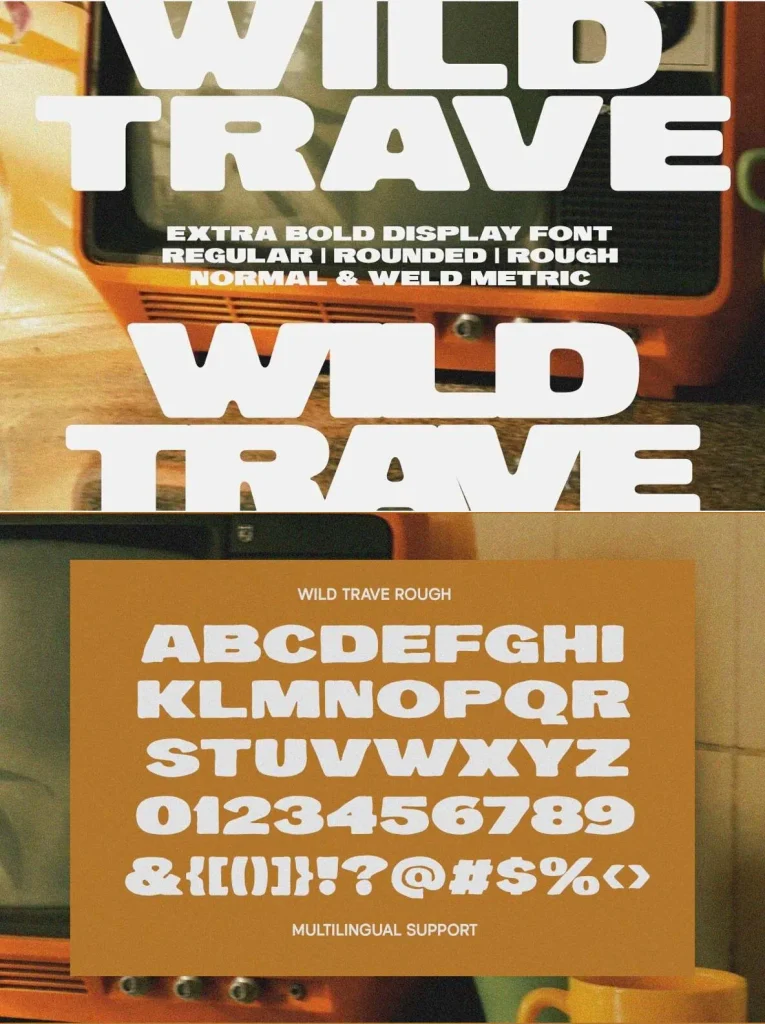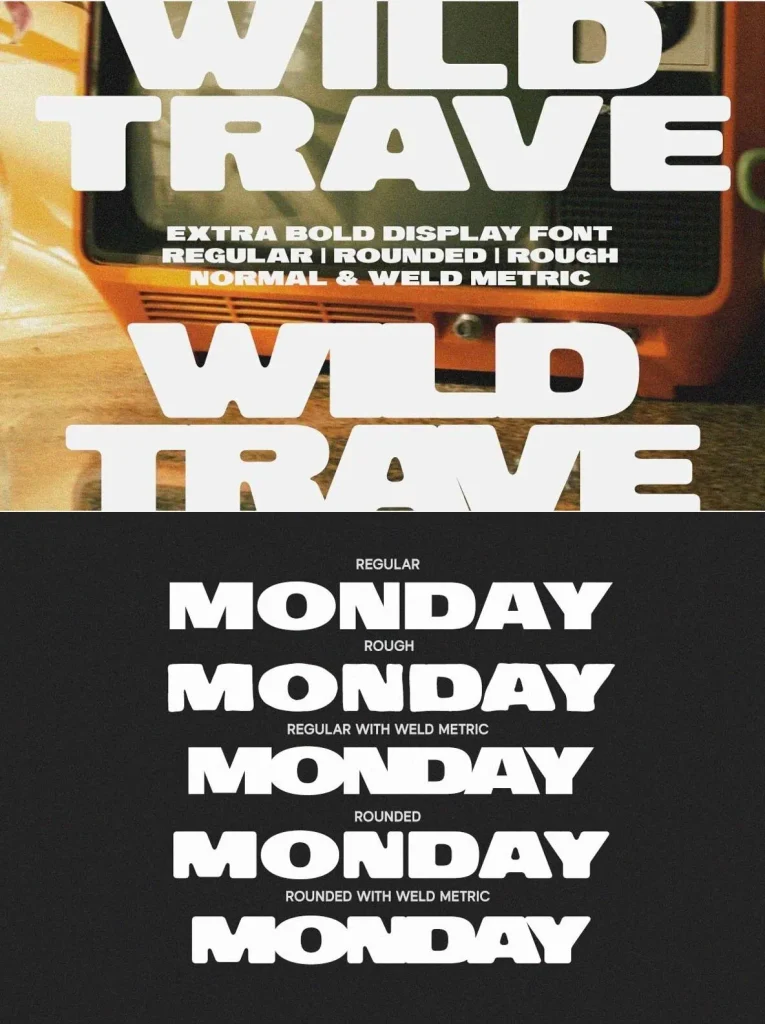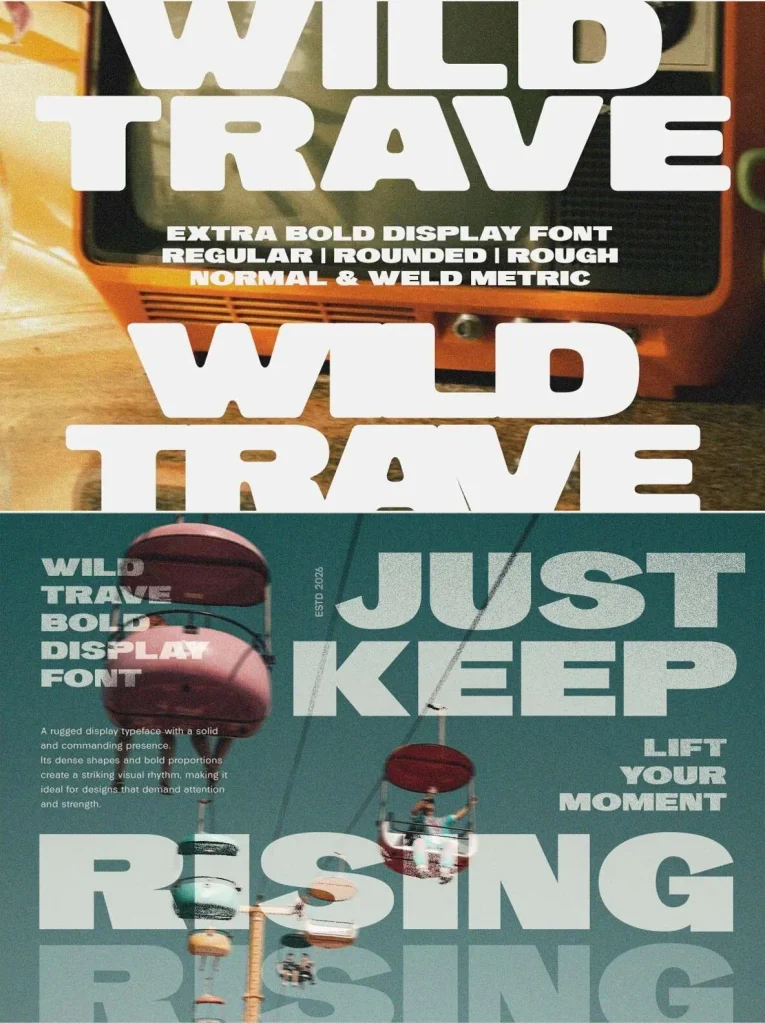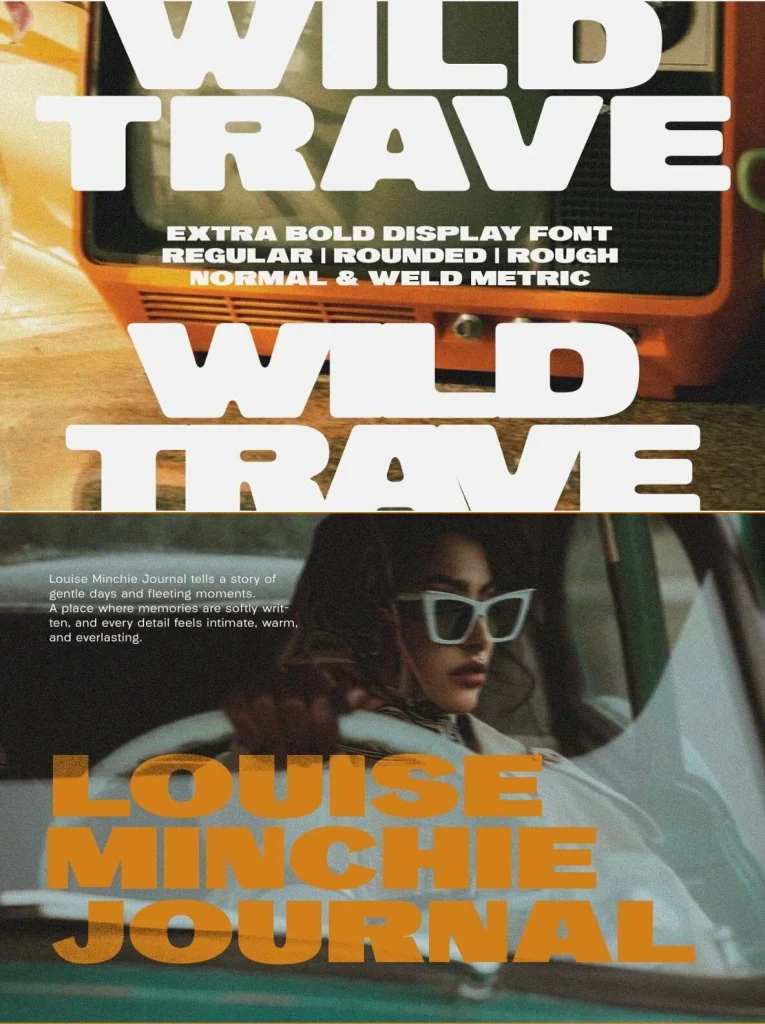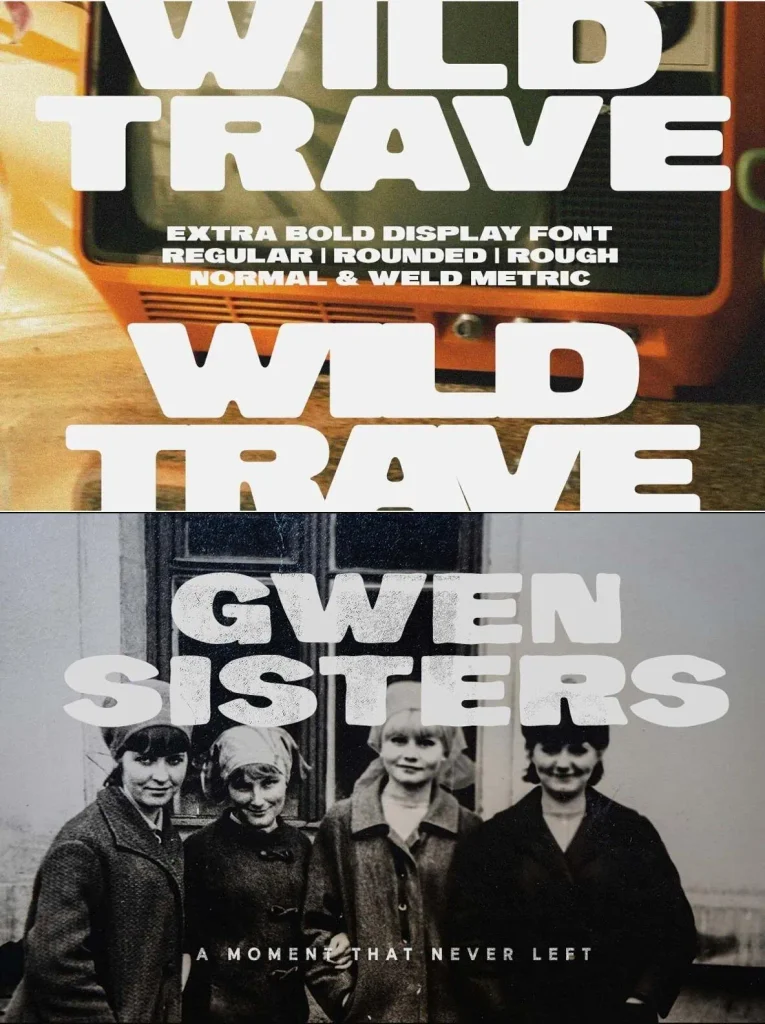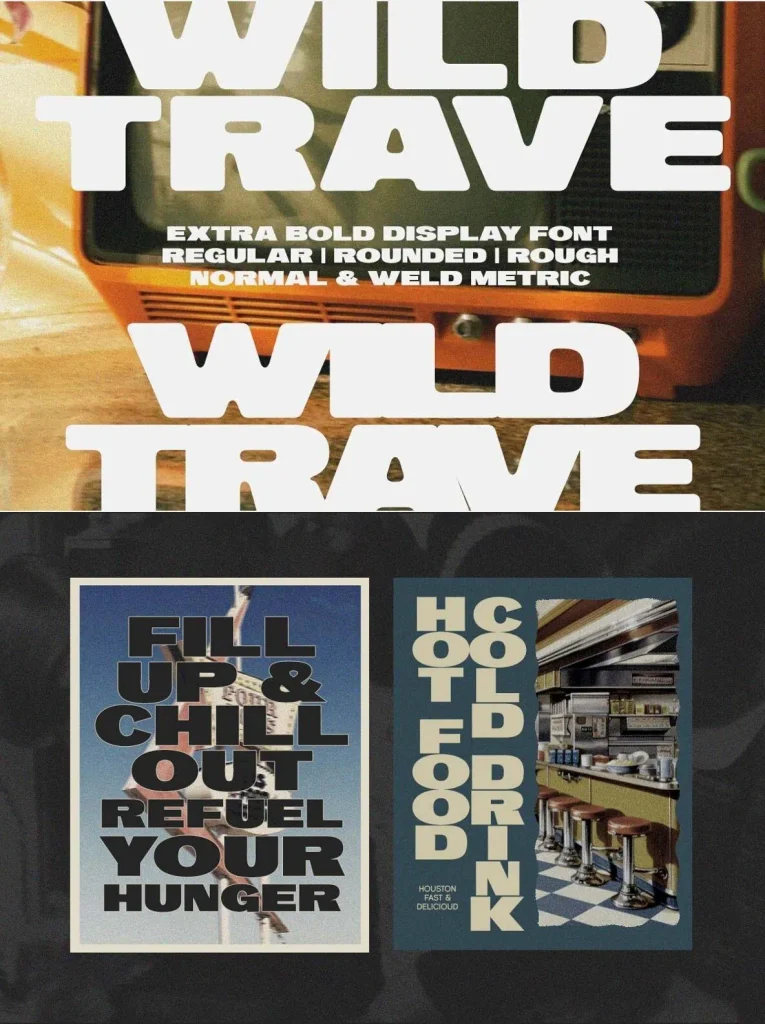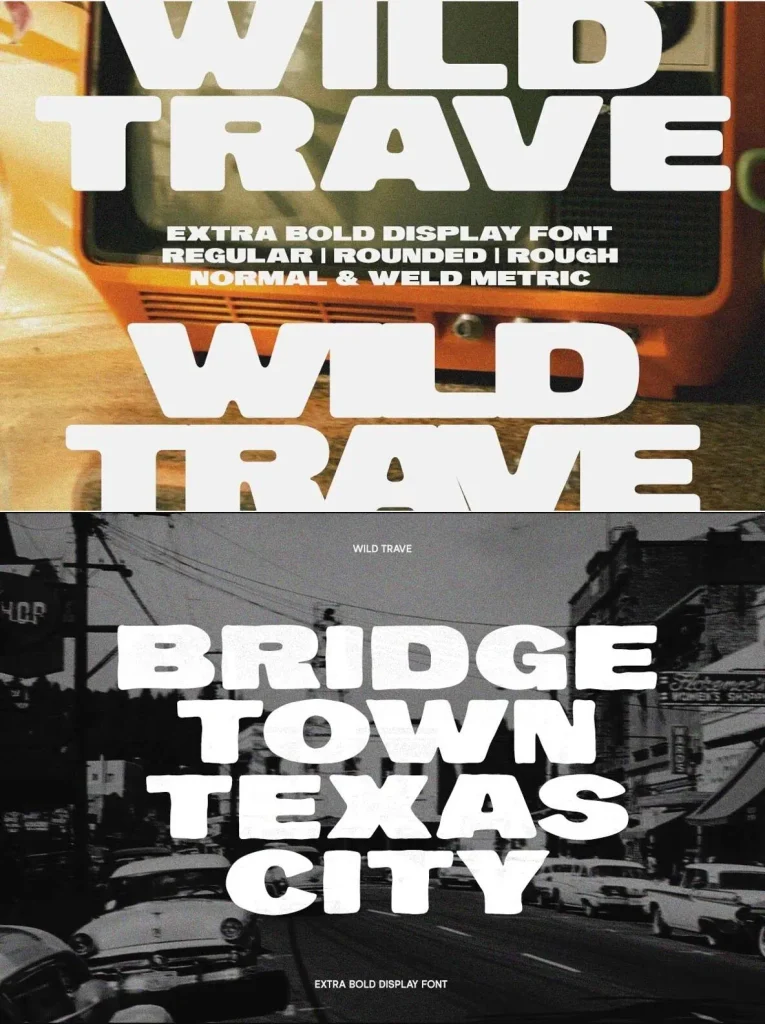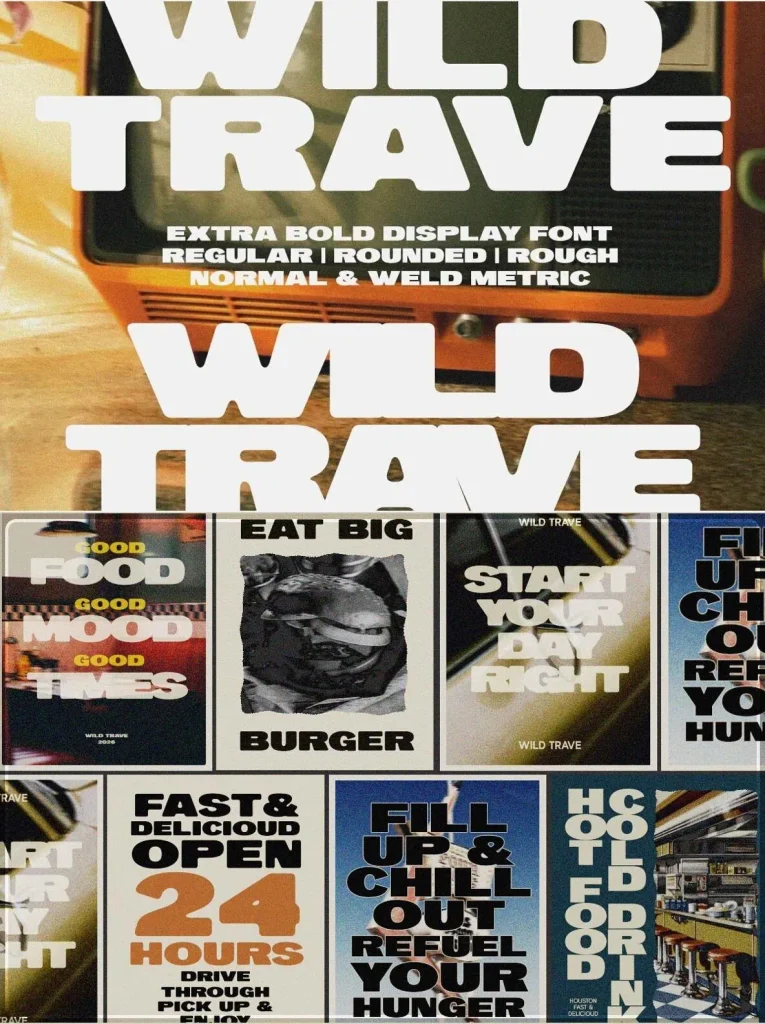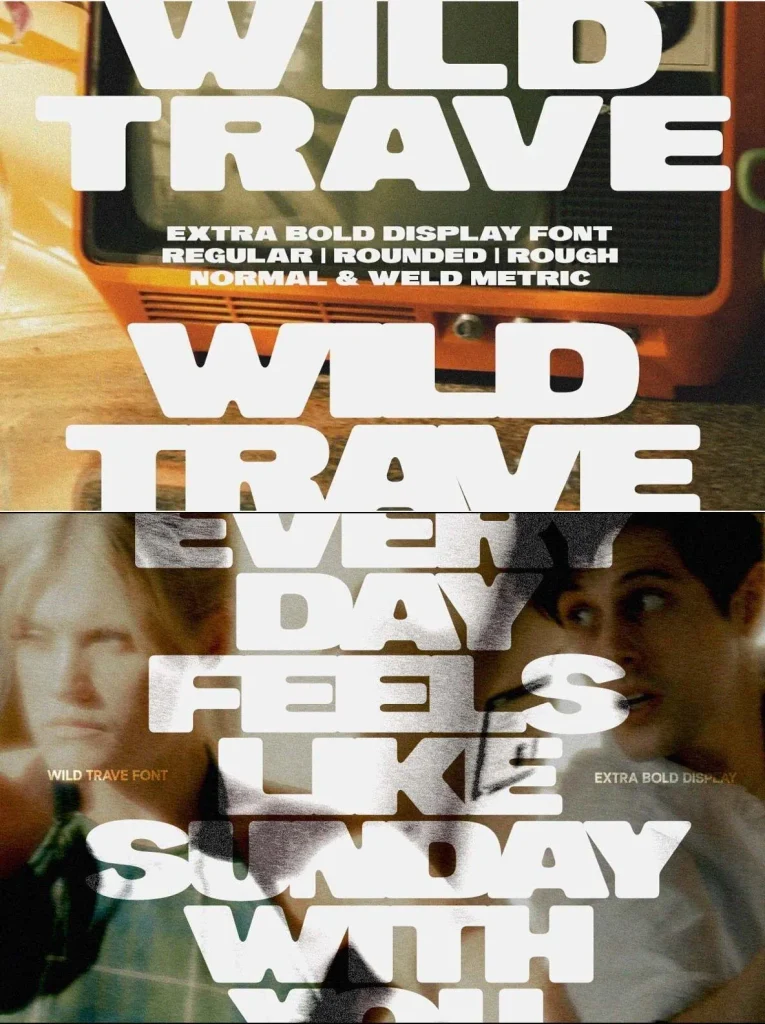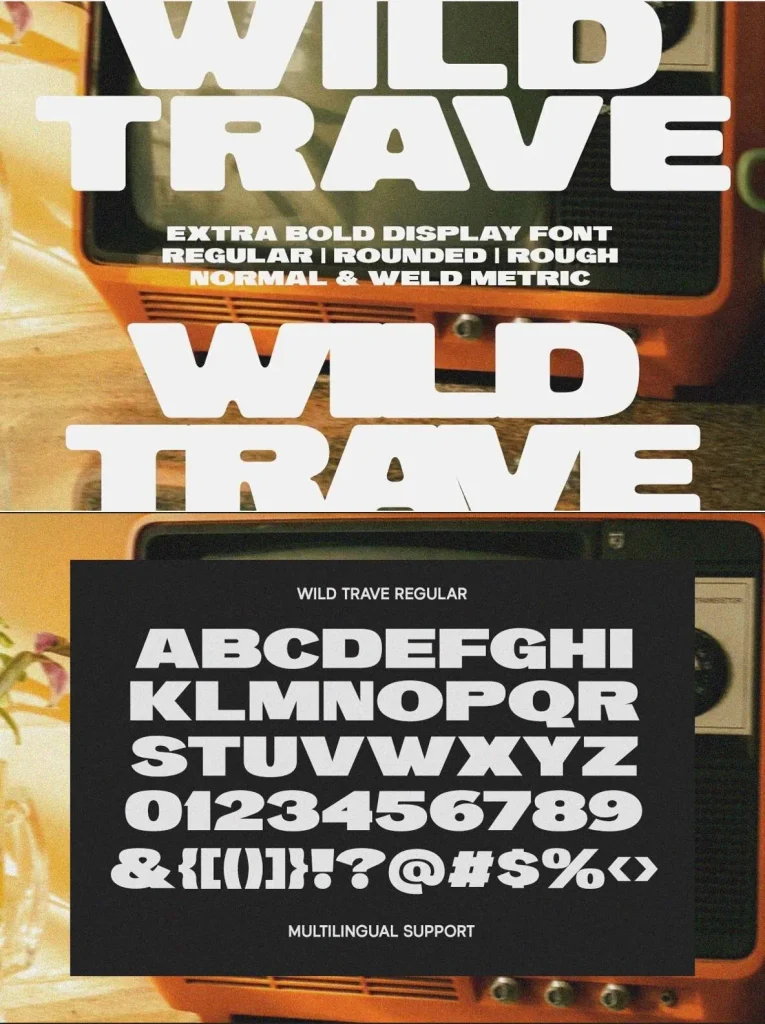
Wild Trave — Retro Volume in Motion
Wild Trave comes in loud, chunky, and full of retro energy. Its extra bold letterforms quickly take the spotlight, making this display font a strong choice for titles, posters, packaging, and visual identities that need a groovy vintage tone.
Inspired by vintage television graphics and old-school poster styles, Wild Trave blends smooth curves with strong geometric shapes. The result feels playful, confident, and warmly nostalgic, while still offering practical support for expressive typography across multilingual projects.
Features
Uppercase & lowercase
Numbers and punctuation
Alternates & Ligatures
Multilingual Support